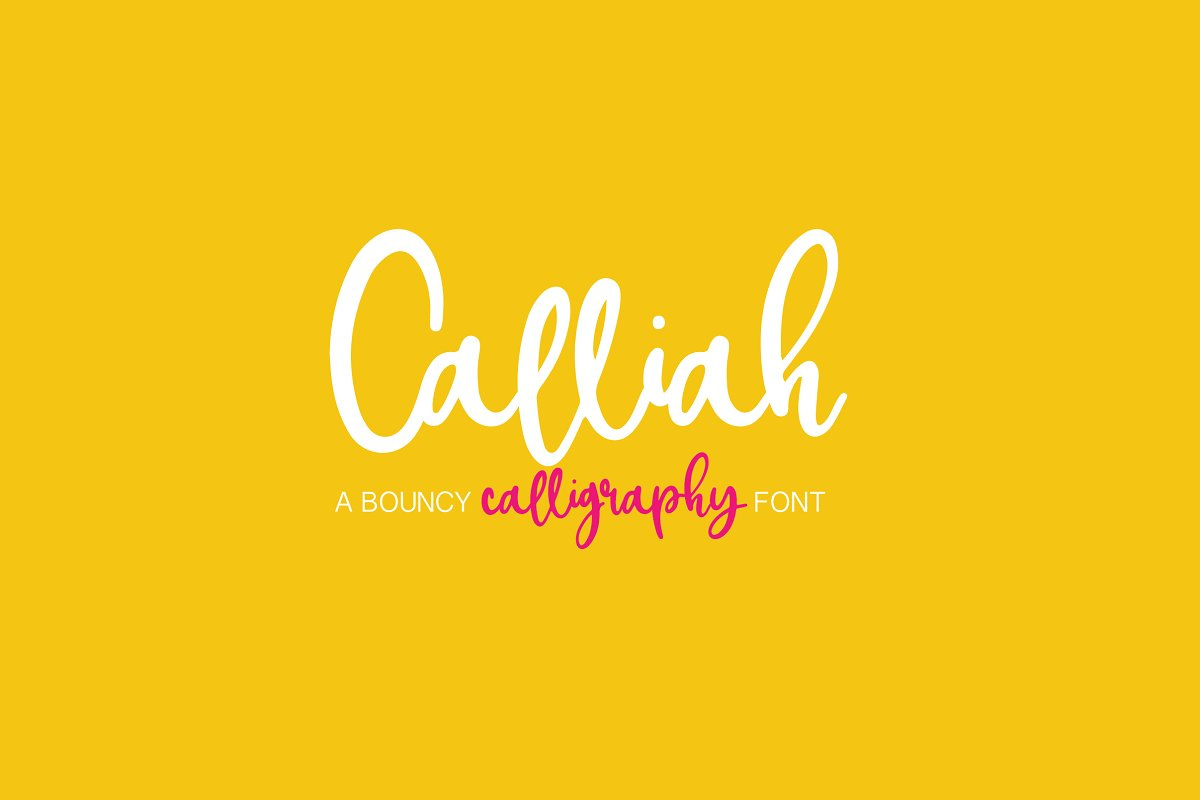
Calliah Font
Calliah Font is perfect for elegant wedding invitations, luxury brand identities, sophisticated fashion magazines, premium cosmetics packaging, refined restaurant branding, upscale boutique signage, graceful greeting cards, exclusive event stationery, and high-end lifestyle campaigns.
What makes Calliah Font exciting is its exquisite balance of contemporary elegance with timeless sophistication that creates an atmosphere of refined luxury and graceful beauty. The font features flowing letterforms with delicate curves and carefully crafted proportions that exude femininity and premium quality. Its meticulously designed character relationships and harmonious spacing make it perfect for brands that want to communicate exclusivity, refined taste, and sophisticated elegance while maintaining excellent readability across all luxury applications, ensuring memorable impressions on discerning audiences who appreciate exceptional design quality.
Calliah Font family includes various elegant weights such as Light, Regular, Medium, and Bold variations, often featuring graceful italics and stylistic alternates. The family may include decorative swashes, refined ligatures, and premium ornamental elements that enhance the font's luxurious aesthetic, providing designers with comprehensive options for creating sophisticated typographic compositions and elevated brand experiences that resonate with luxury market expectations.